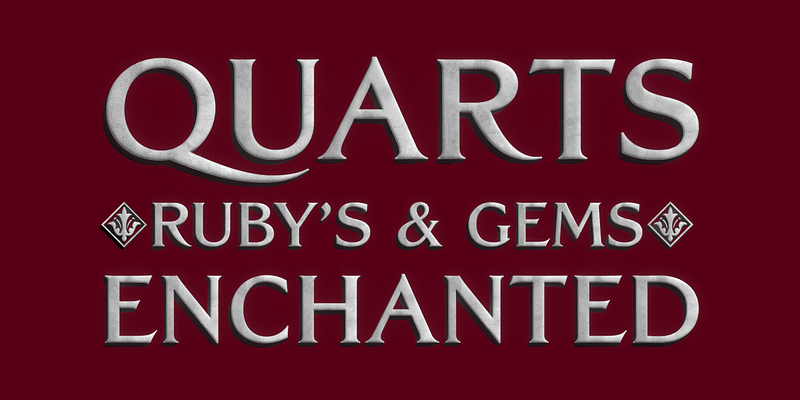
In 1998, Tobias Frere-Jones designed Grand Central for 212 Associates from late-’20s capitals hand-painted on the walls of Grand Central Station. The design is a distinguished Beaux Arts descendant of the great French Oldstyle originated by Louis Perrin in Lyons in 1846, known across Europe as Elzevir and in the United States as De Vinne. Lettering from different areas was combined for Light; Bold was designed for more distant signs.